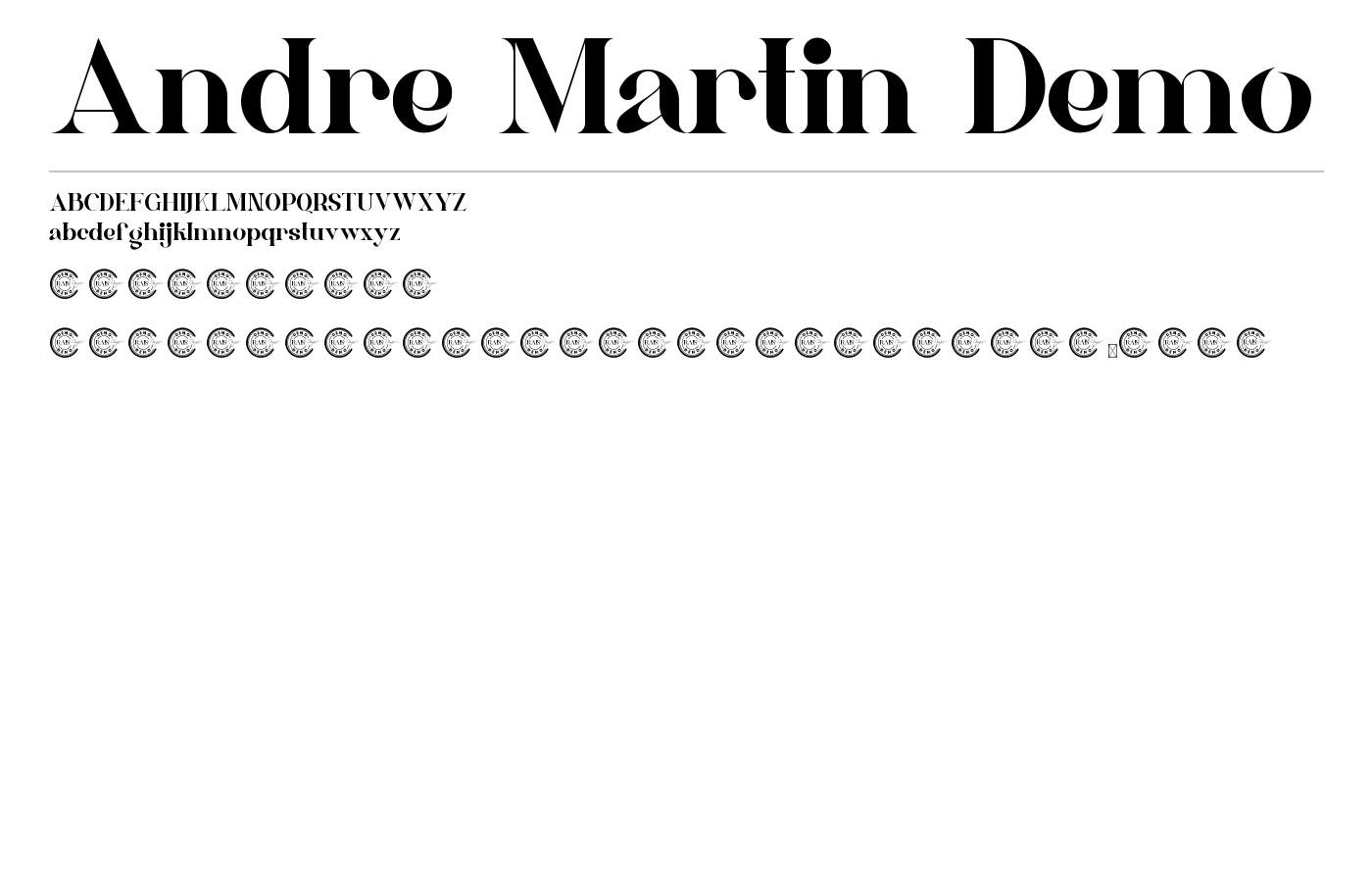
Andre Martin Demo is a sophisticated serif font that combines high contrast between thick and thin strokes with sharp, elegant serifs, giving it a refined and modern appearance. Its distinct letterforms, such as the uniquely curved lowercase "r" and the dramatic leg of the "R," make it ideal for fashion branding, luxury packaging, and high-end editorial headlines where a stylish and polished look is desired. This font works best in large sizes to showcase its elegant details and luxurious personality.
Andre Martin Demo Font
About Andre Martin Demo Font
| Font family | Andre Martin Demo Font |